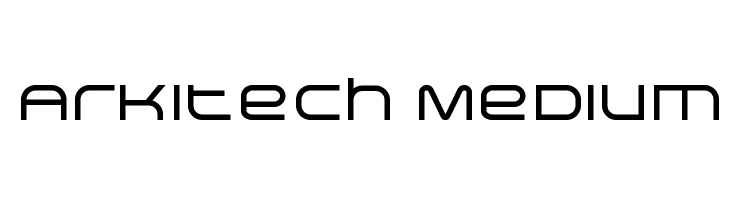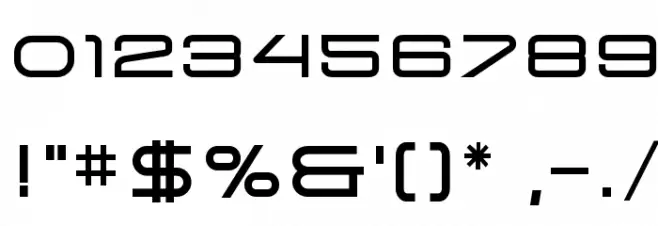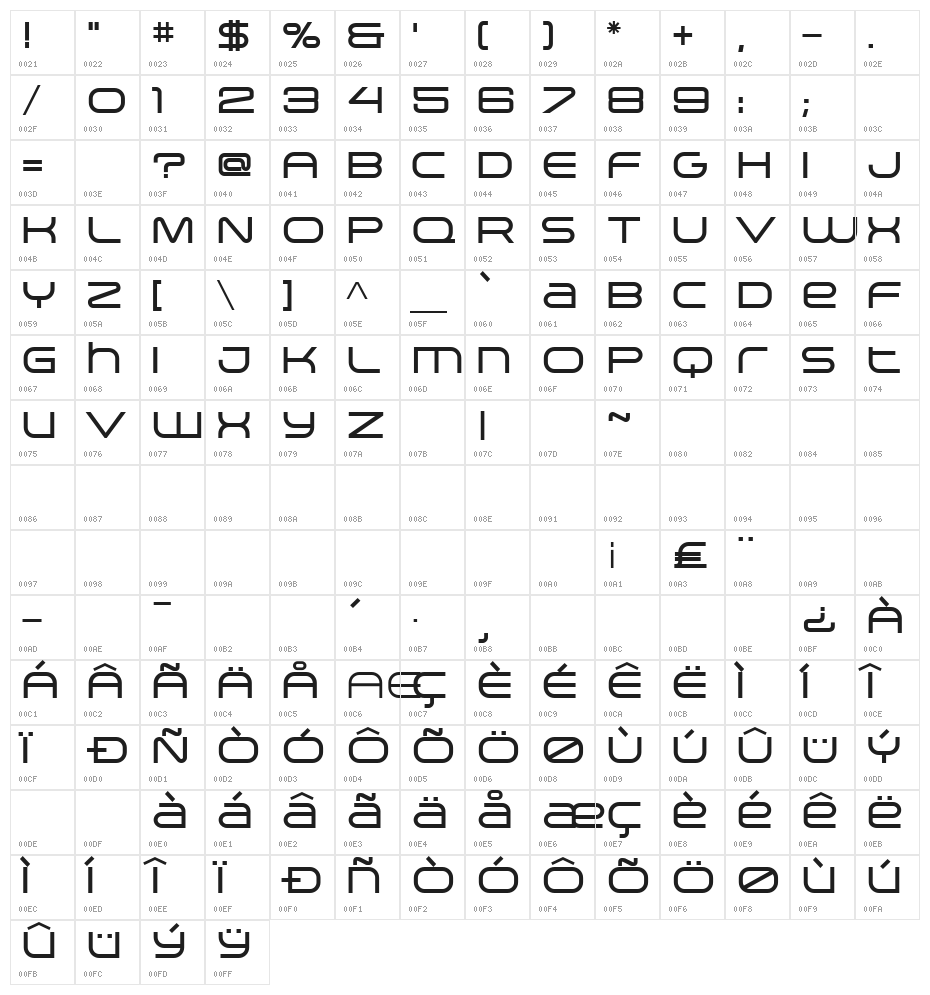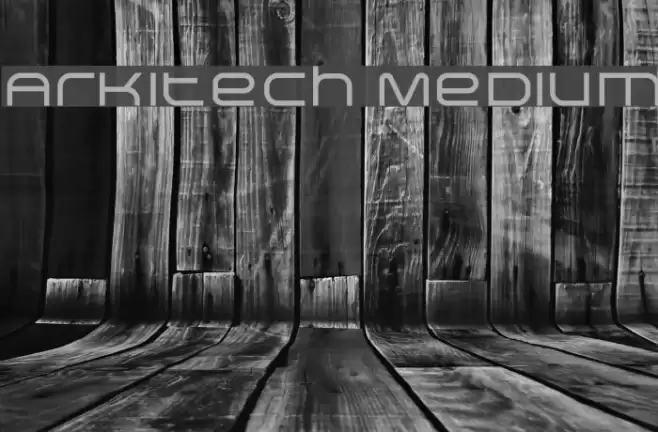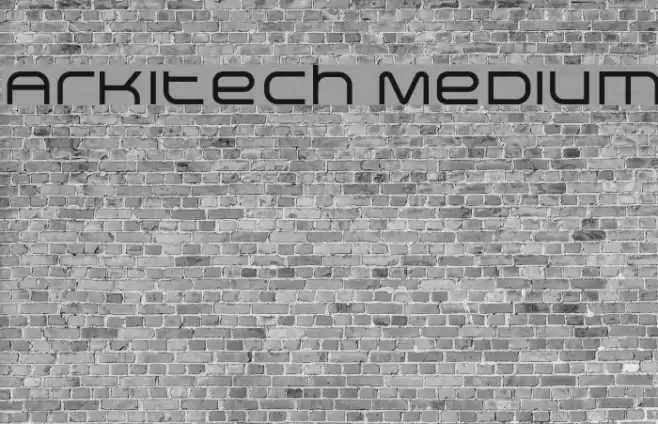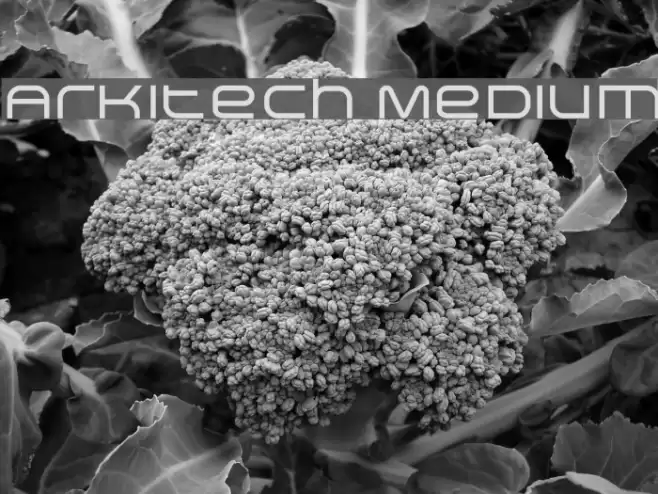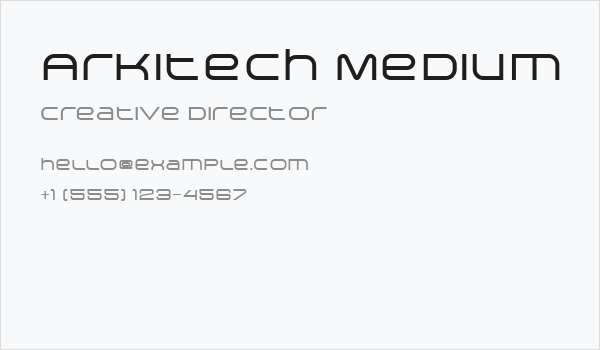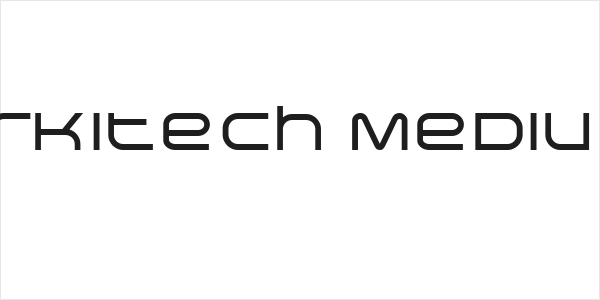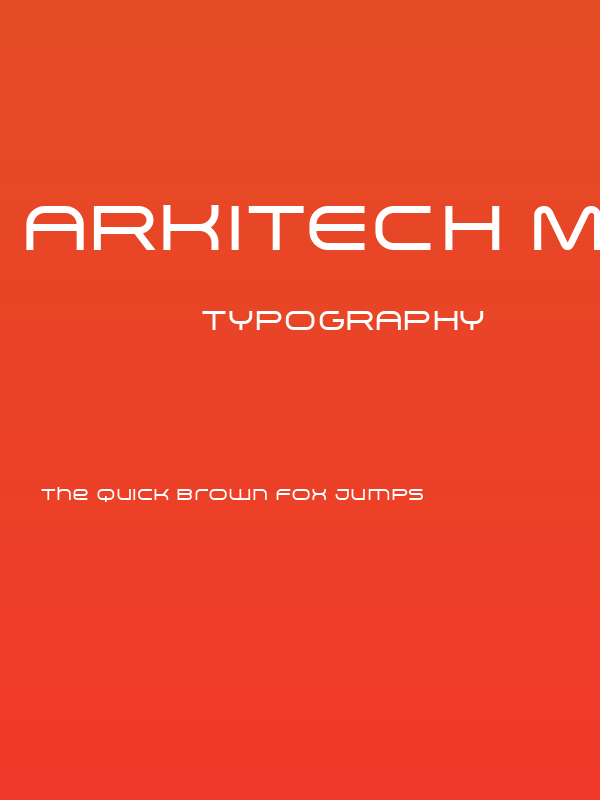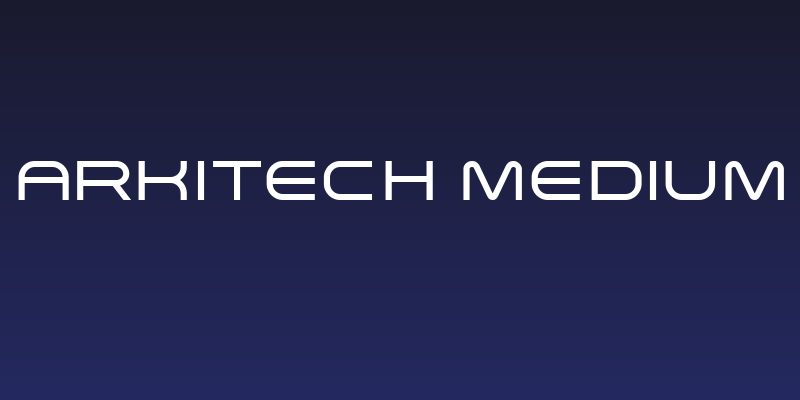
Arkitech Medium Font
Arkitech Medium Description
This font exhibits a modern, geometric style with a futuristic touch. The characters are constructed with clean, precise lines and a uniform stroke width, giving it a sleek and contemporary appearance. The uppercase and lowercase letters maintain a consistent height, enhancing readability. The numerals and special characters are designed to match the overall aesthetic, with a focus on symmetry and balance. The font's structure is minimalistic yet distinctive, making it suitable for digital and print media. Its unique design elements, such as the rounded edges and open counters, contribute to its futuristic appeal.
| Proposed Projects | Ideal for tech branding, digital interfaces, modern advertising, and futuristic-themed projects. |